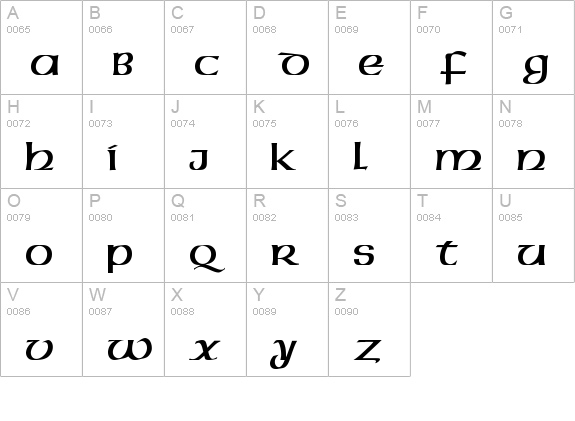
American-Uncial-Normal is the standard, neutral variant in the American typeface family \xE2\x80\x94 well suited to general body text, paragraphs, and standard typographic work.
American Uncial Normal is a classic and elegant font that brings a touch of old-world charm to any design project. With its distinctive calligraphic style and unique letterforms, this typeface is perfect for adding a sense of sophistication and tradition to your creations. The smooth curves and balanced proportions of American Uncial Normal make it ideal for a wide range of applications, from invitations and greeting cards to branding and packaging. Best of all, American Uncial Normal is available for free download at FontsMarket.com, making it a versatile and accessible choice for designers and enthusiasts alike. Whether you're looking to add a touch of vintage flair to your designs or simply want to explore a new typeface, American Uncial Normal is sure to inspire creativity and elevate your work to new heights.